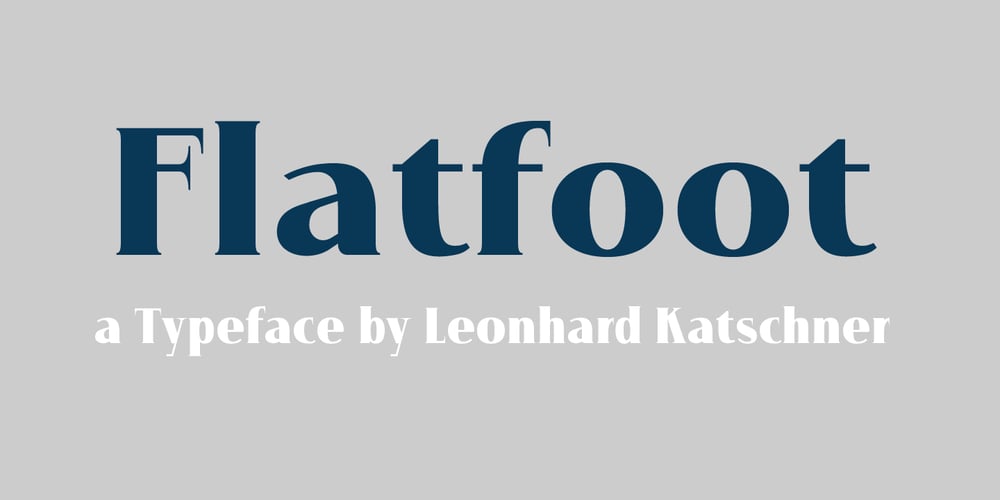
Flatfoot
Flatfoot font
Flatfoot Font Family was designed by Leonhard Katschner and published by Brave Type. Flatfoot contains 7 styles and family package options. Flatfoot has it’s very own style and is surely unique, crafted to shine with individuality.The straight letter endings are giving it a flat look and the tiny serifs are referring to classical types.It has a high contrast and high uppercase letters & many details are waiting for you to be discovered.Take Flatfoots personality and let it influence your designs.